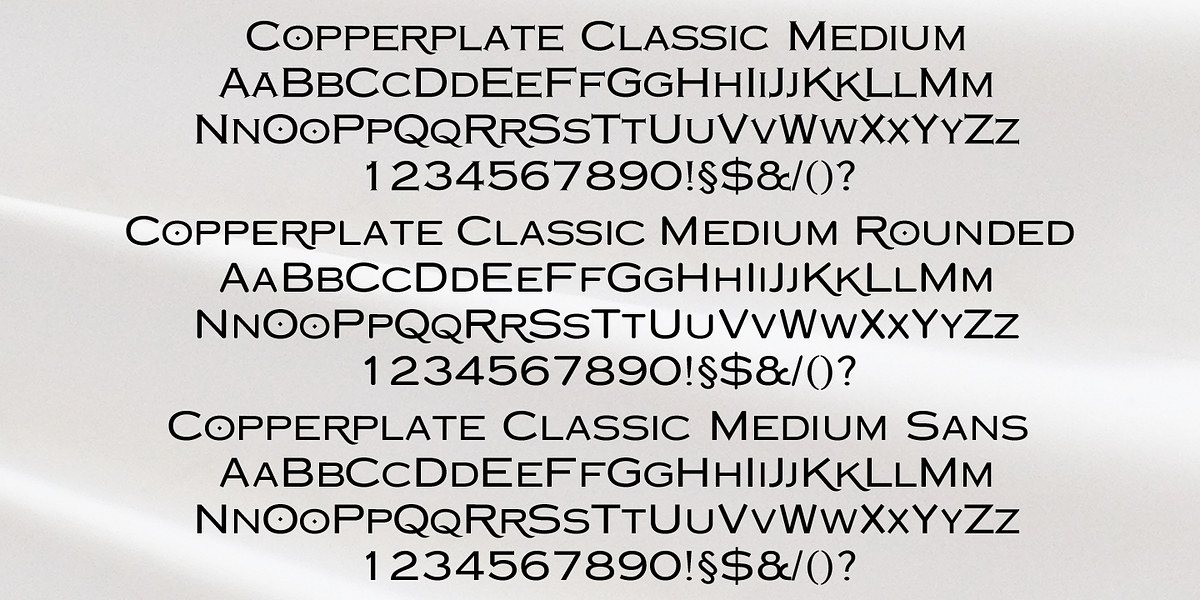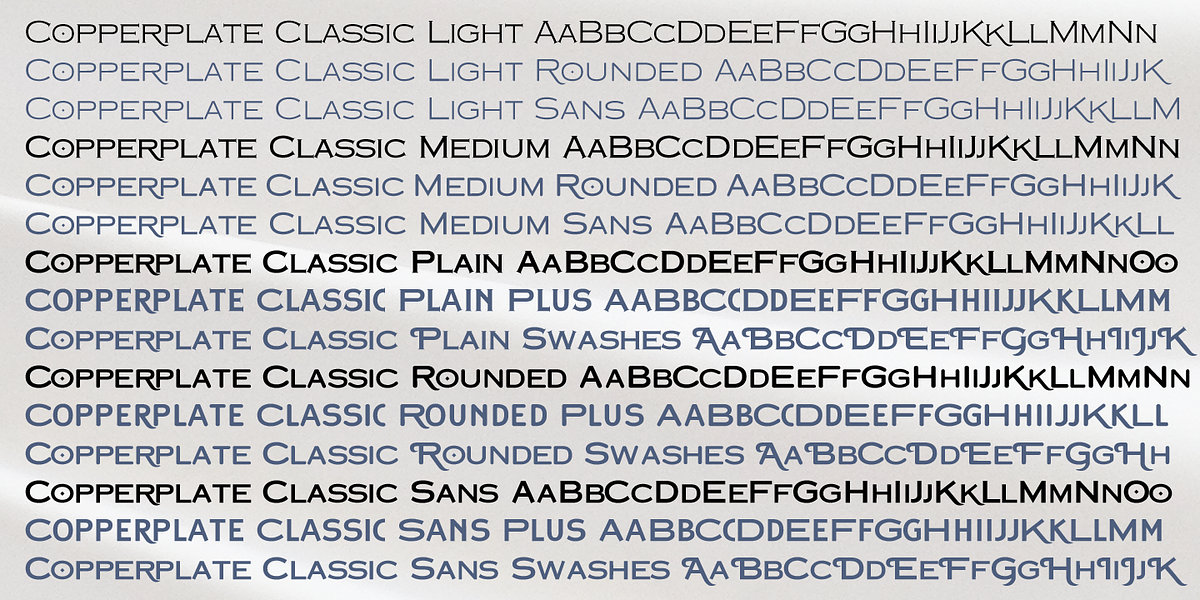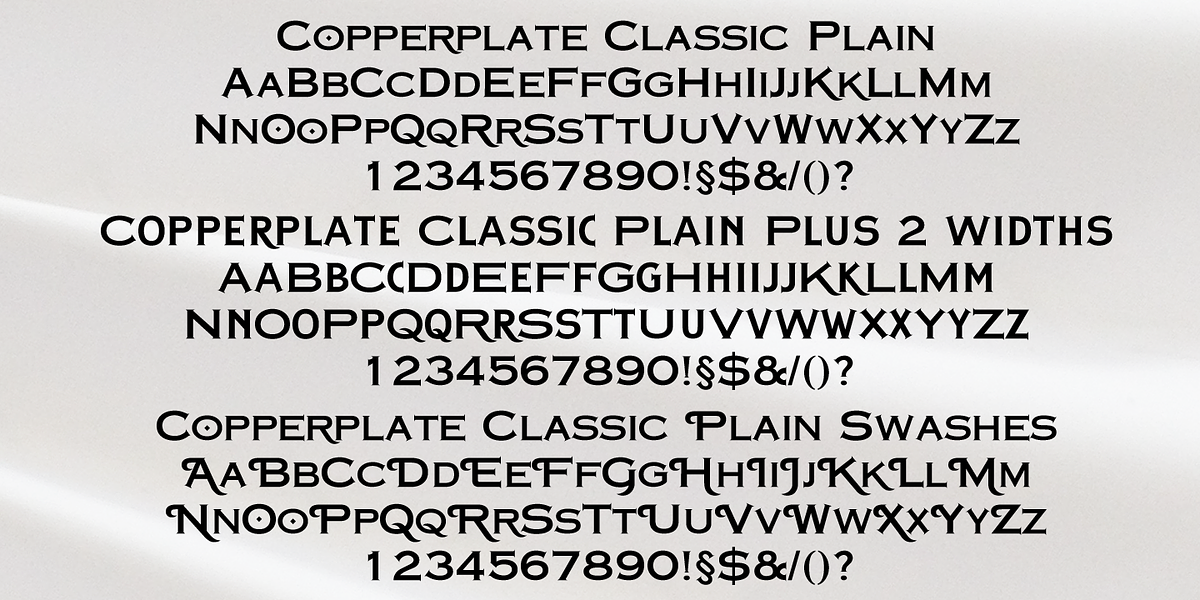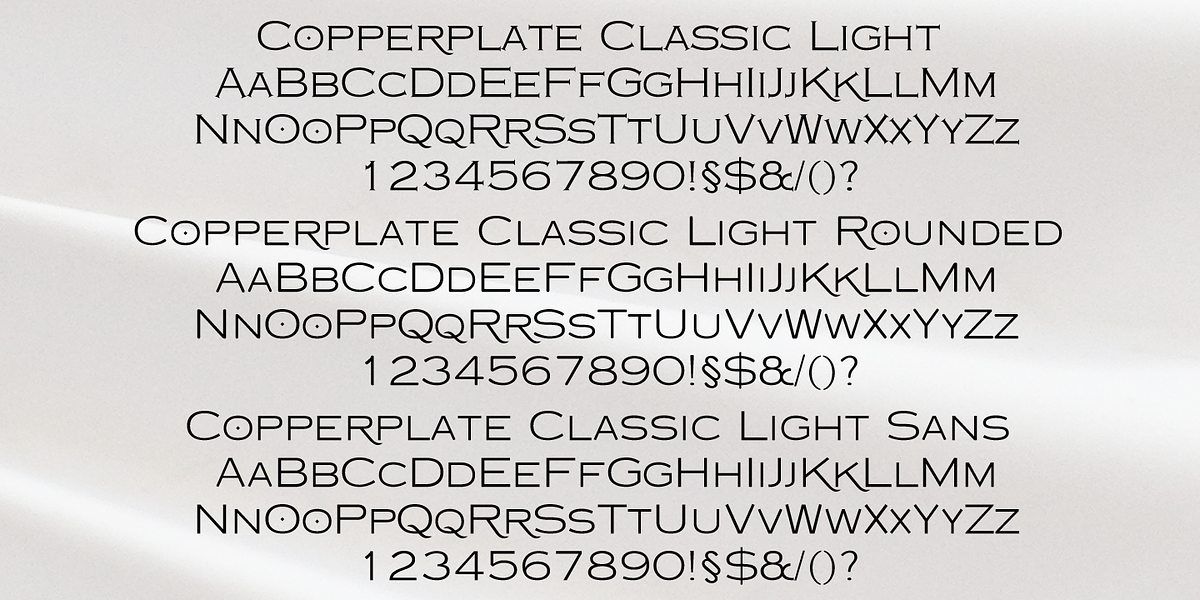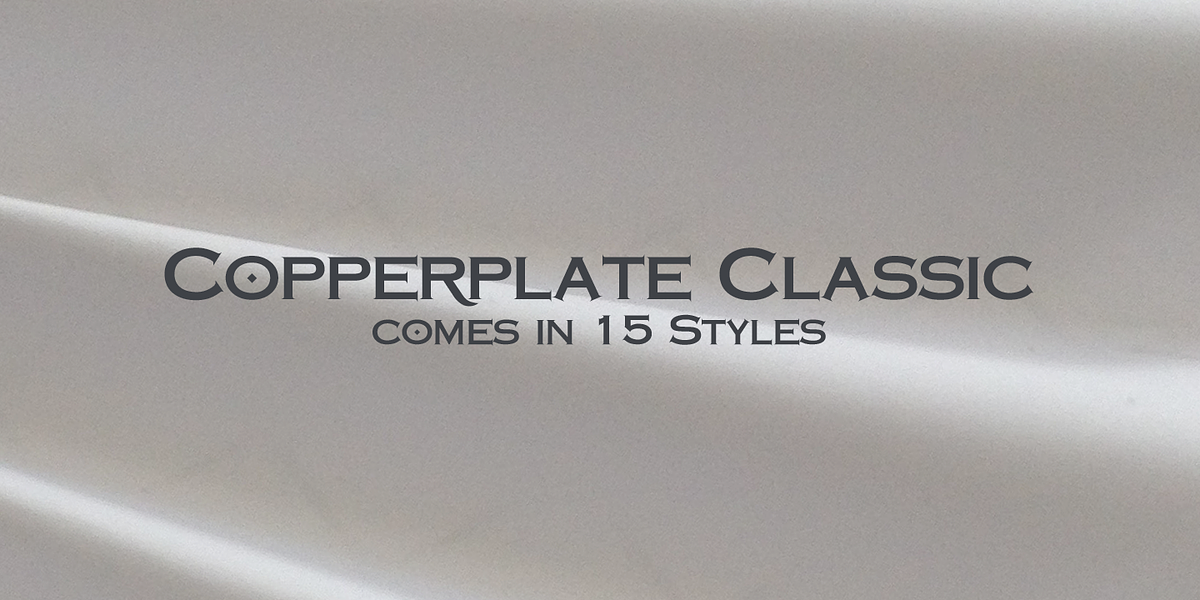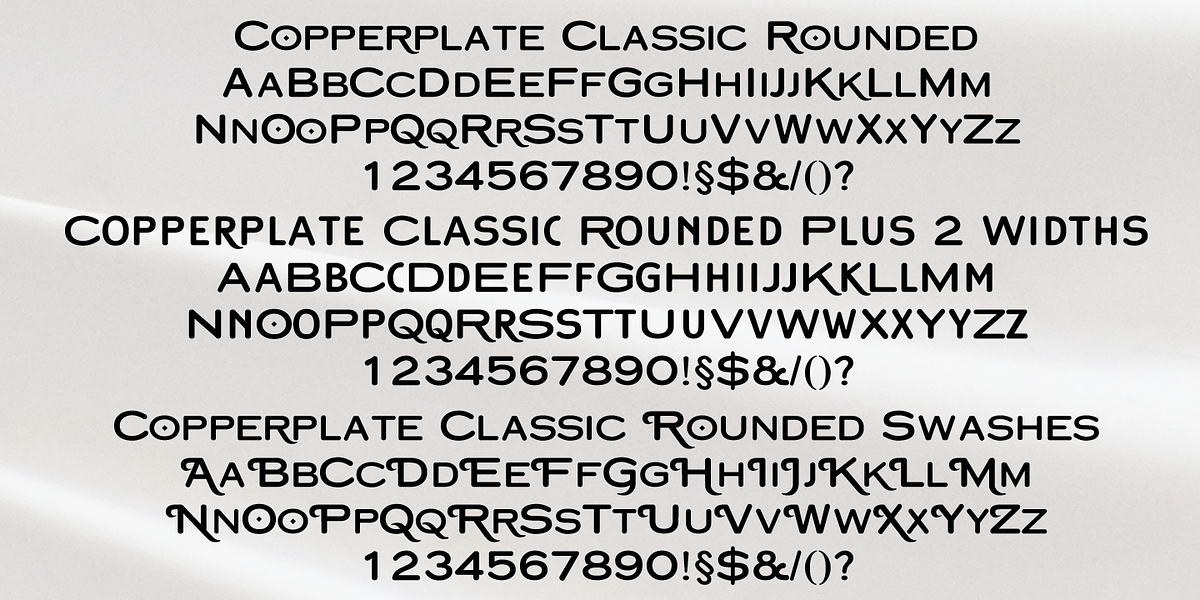
Copperplate Classic
This font is a versatile display typeface that draws inspiration from the classic copperplate style. It features a serif design with rounded elements and includes variations with sans-serif styling and swashed caps for added visual interest. It is well-suited for headlines, branding, and other display applications where an elegant and refined look is desired.